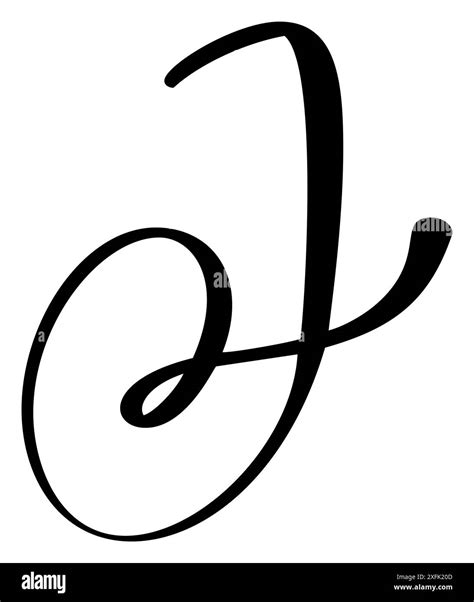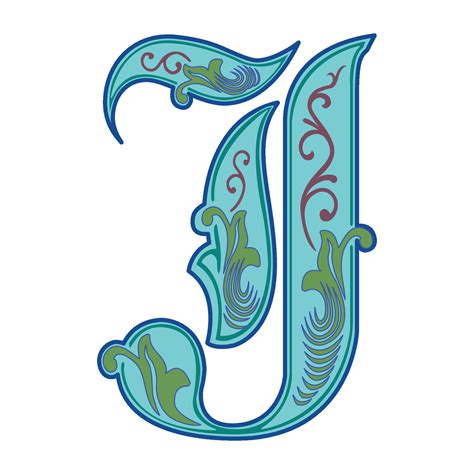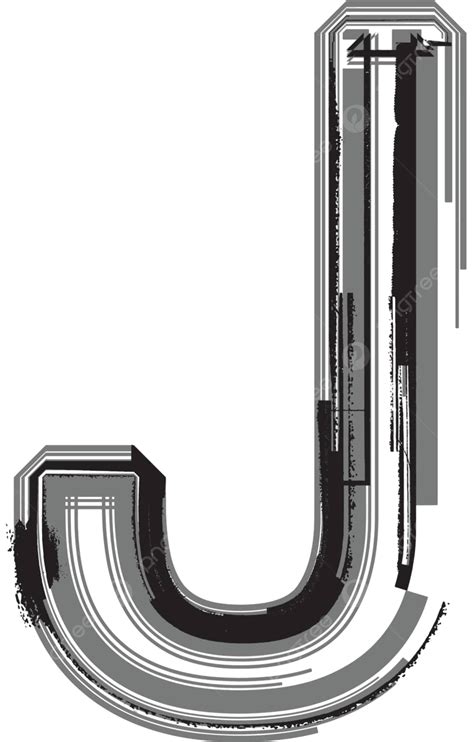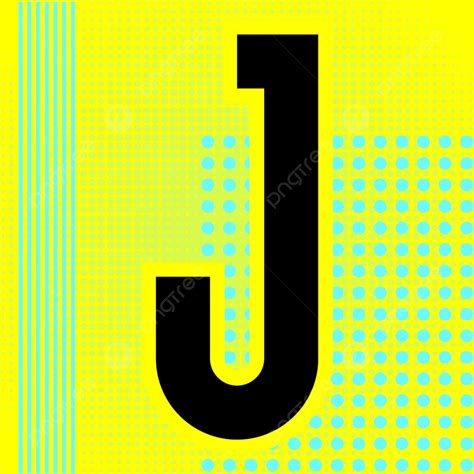
Selecting the perfect Font For J require a keen eye for typography, as the missive "J" is one of the most structurally complex characters in the alphabet. Its descending tail oftentimes dictates how a typeface interacts with the baseline, making it a critical litmus test for decorator seeking balance and esthetic concord in their branding or editorial labor. Whether you are working with serif, sans-serif, or cosmetic hand, see how the bender of a minuscule or uppercase "J" impacts the overall discernability of your copy is all-important for professional optical communicating.
Understanding the Anatomy of the Letter J
The missive J is unique because it is one of the few characters that deign significantly below the baseline. When look for a Font For J that appear equilibrate, you must consider the "bait" of the missive. Some typeface have a incisive, fast-growing terminal, while others offer a softer, more rounded last. This refinement can drastically modify the timber of your text.
Serif vs. Sans-Serif J Styles
The alternative between seriph and sans-serif is the first vault in your typography journey. Here is how they typically differ when display the letter J:
- Serif Fonts: These often feature a "beak" or a decorative serif at the top of the uppercase J, providing a traditional, authoritative looking.
- Sans-Serif Case: These prioritize geometric simplicity. A Font For J in this category often features a clean, consistent stroke breadth that experience modern and minimalist.
- Humanist Styles: These attempt to mime handwriting, proffer a more organic flowing to the tail of the letter.
Comparing Popular Font Categories
To facilitate you decide which way lawsuit your specific task, the following table breaks down how different font families cover the structural requirements of the missive J.
| Font Category | Feature of' J' | Good Use Case |
|---|---|---|
| Modern Serif | High contrast, graceful crotchet | High-end fashion branding |
| Geometric Sans | Strict curves, consistent breadth | Tech startup and UI designing |
| Script/Calligraphic | Fluid, sweep descender | Invitation and personal logotype |
| Slab Serif | Bold, blocky groundwork | Editorial headline and posters |
💡 Note: When choose a font for a logotype that focuses on the missive J, ensure the stroke weight at the base does not get lose when scaled down for mobile displays.
Technical Considerations for Typography
Beyond esthetic, technical constraints play a massive purpose in font selection. If you are contrive for the web, you must control your chosen case is optimized for screen interpretation. A Font For J might appear beautiful in a mark magazine, but the frail curve of the descender could pixelate or vanish on low-resolution admonisher.
The Importance of Kerning and Tracking
The letter J is prone to leaving declamatory negative infinite, especially when couple with vowels like' a' or' o '. If you mark that your schoolbook feel "loose" or disconnected, it is potential due to misfortunate kerning around the J. Always manual adjust the spacing between the J and the next missive to ascertain a cohesive tidings shape.
Selecting the Right Weight
Font weight isn't just about daring; it's about readability. In a cube of body text, a thin, light-weight J can get unseeable at small sizes. For editorial employment, aim for a "veritable" or "book" weight that provides enough core to specify the letter's unequalled structure without experience heavy or intrusive to the subscriber.
Observe the ideal fount for your design goals is a process of balancing proficient legibility with esthetic sight. By focusing on how the descender of the J interacts with the surround characters, you can avoid common pitfall that create text appear disjointed or amateur. Whether you prioritize the clean lines of a geometrical sans-serif or the authoritative elegance of a high-contrast serif, the letter J acts as the lynchpin point for your visual individuality. By meticulously adjusting kern, try weight variation across different screen size, and canvas the terminal of the descender, you will ensure that your typography remains clear, professional, and visually compelling. Mastering the nuance of this specific fiber will finally upgrade the touchstone of your entire design portfolio and create a more refined end solution for any projection involving the missive J.